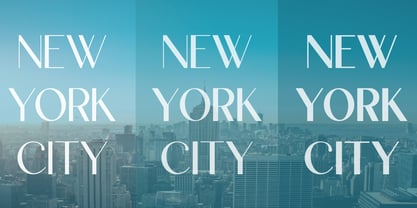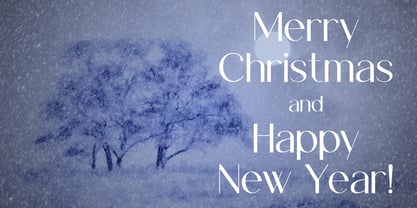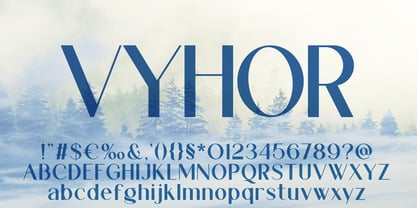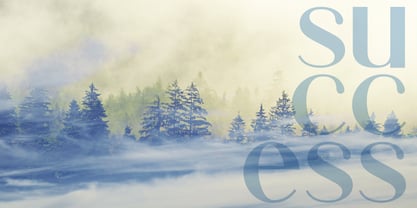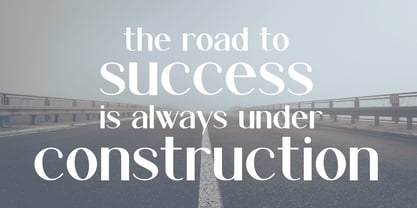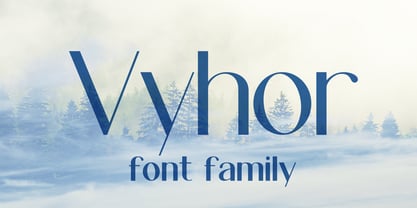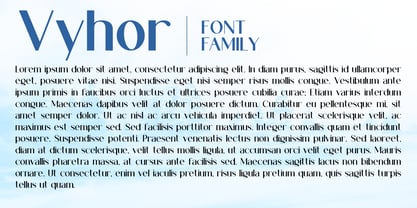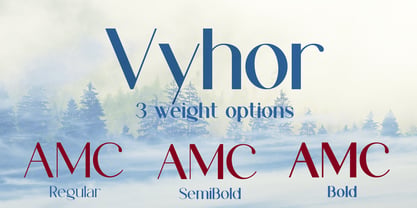
Vyhor
por VladB
La familia tipográfica Vyhor fue diseñada por Volodymyr Berla y publicada por VladB. Vyhor contiene 3 estilos y opciones de paquete familiar. Más información sobre esta familia
Vyhor is a modern and elegant sans serif font that features both upper and lower case characters, supporting a wide range of scripts including Latin, Cyrillic, Latin Eastern Europe, Turkish, Baltic, and more, with over 500 symbols available. The Vyhor family includes three font styles: Regular, SemiBold, and Bold, offering versatility for various design needs. This font is ideal for branding, poster creation, and other graphic design projects, as well as for word processing applications, making it a valuable addition to any designer's toolkit.
Diseñadores: Volodymyr Berla
Fundición: VladB